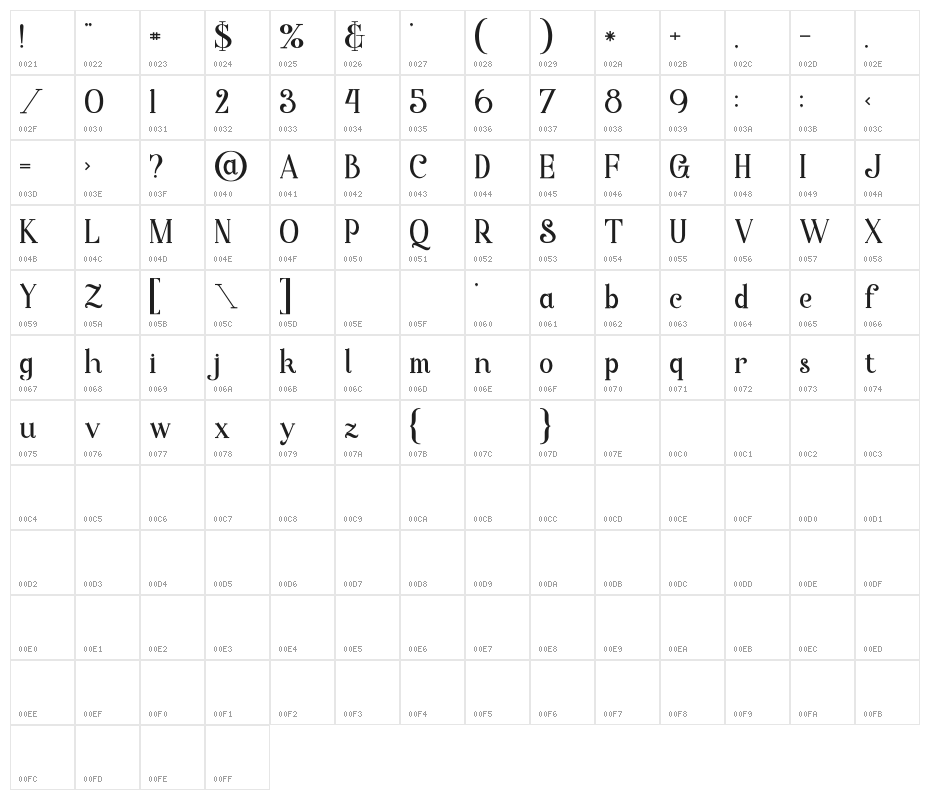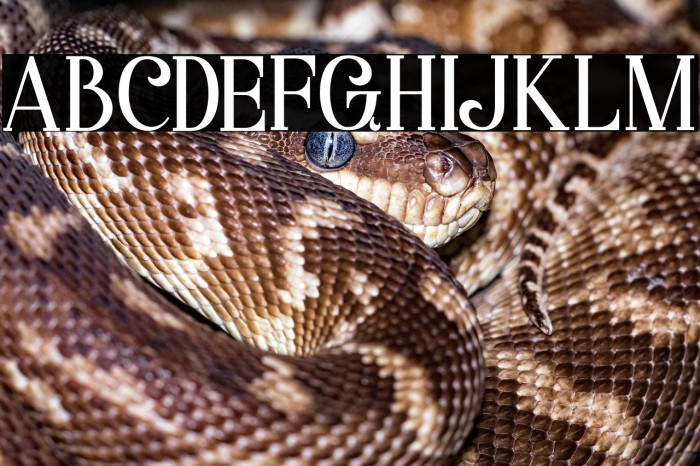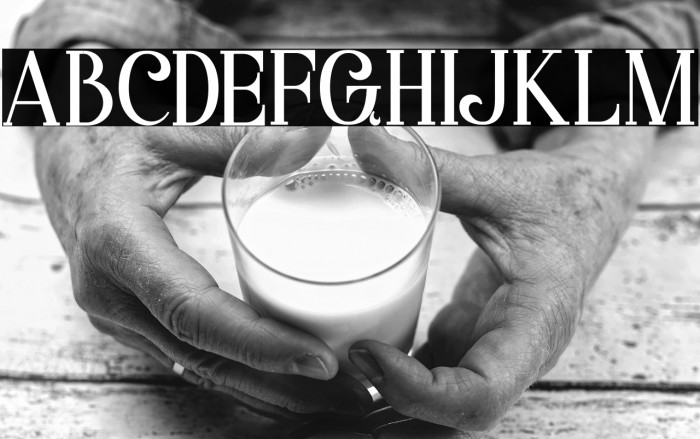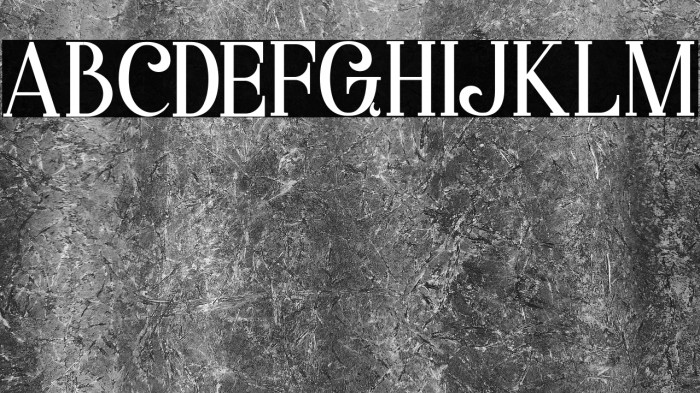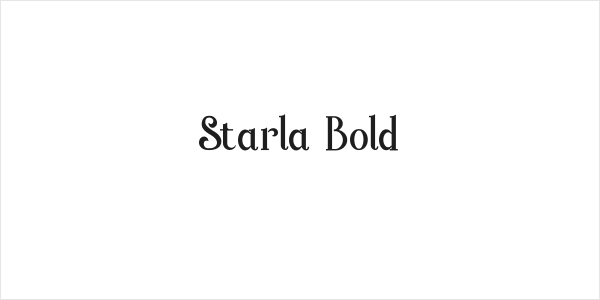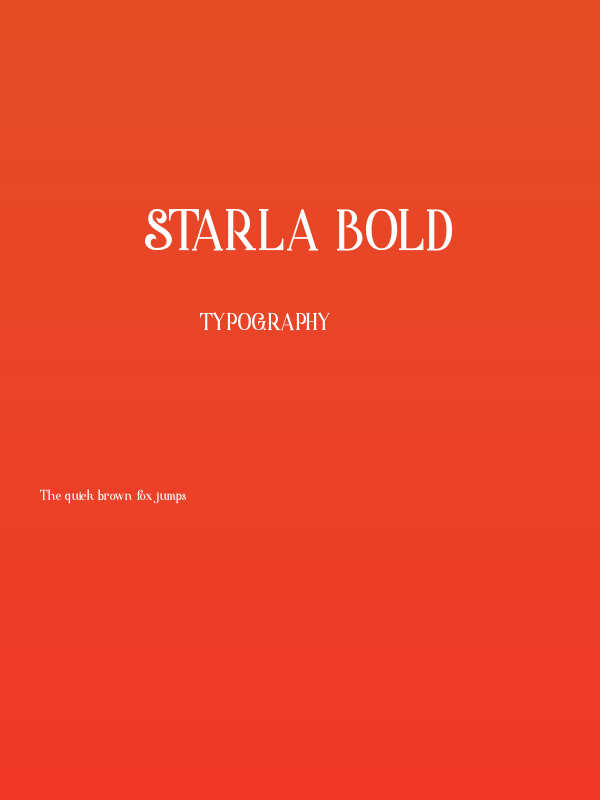
Starla Bold Font
Starla Bold Description
This font exhibits a bold and elegant style with a distinct flair. The uppercase letters are characterized by their strong vertical lines and subtle curves, giving them a classic yet modern appearance. The lowercase letters maintain a consistent style, with unique features such as the curved tail on the 'q' and the looped descender on the 'g'. The numerals are clear and legible, with a uniform thickness that complements the overall design. Special characters are thoughtfully designed, maintaining the font's cohesive aesthetic. This font's boldness and decorative elements make it suitable for a variety of creative applications.
| Proposed Projects | Ideal for branding, headlines, posters, and invitations where a strong, stylish impact is desired. |